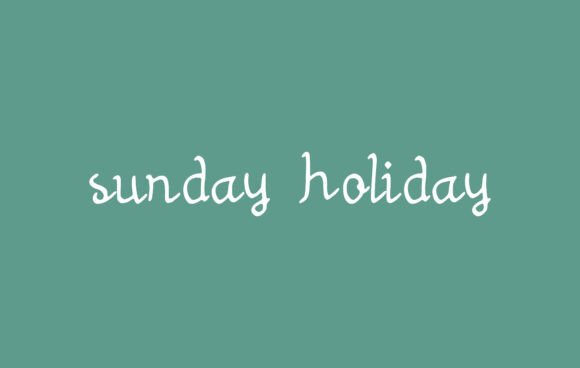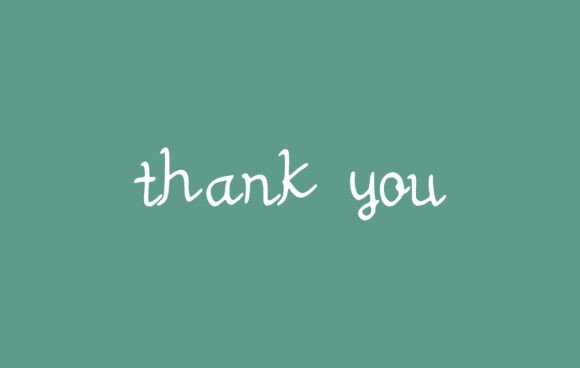
Introduction to Julio Font
Julio font is an authentic handwritten font with a romantic touch.
Key Features of Julio Font
Why Choose Julio Font?
Julio Font offers exceptional quality and versatility, making it a valuable addition to your design toolkit. Whether you’re creating for personal projects or commercial use, Julio Font delivers professional results.